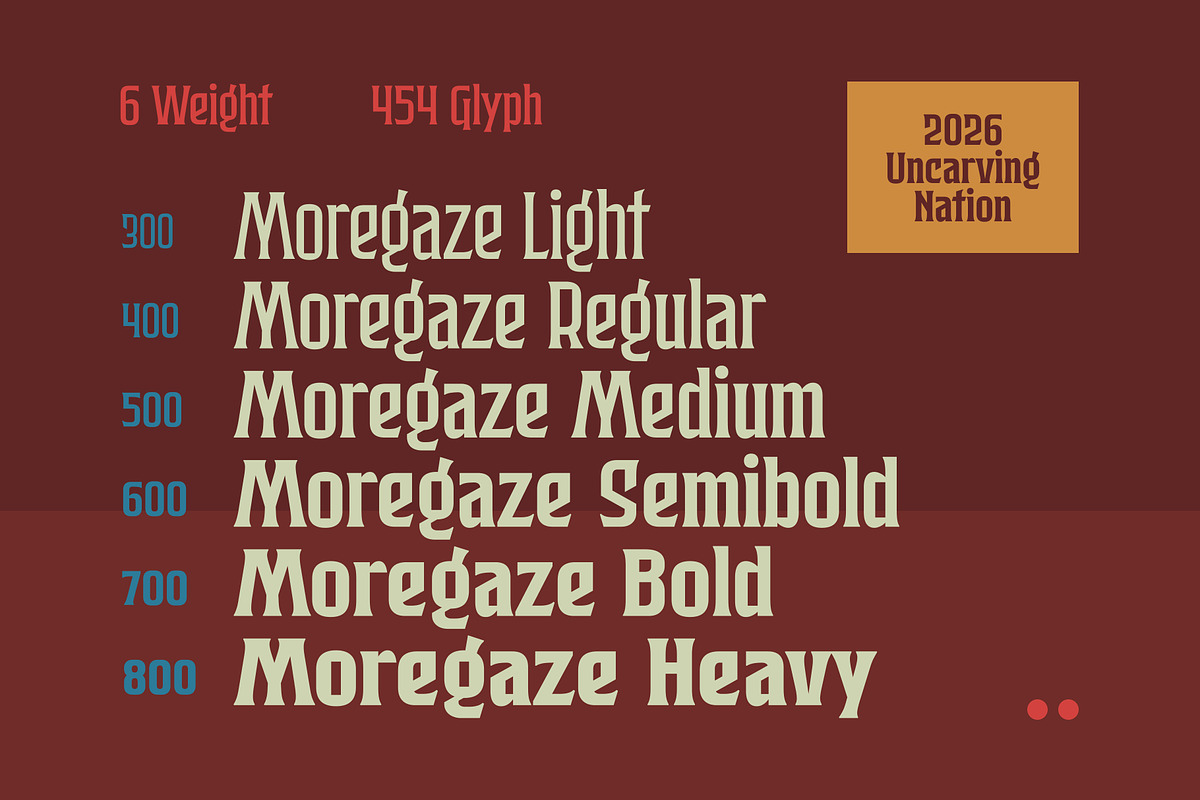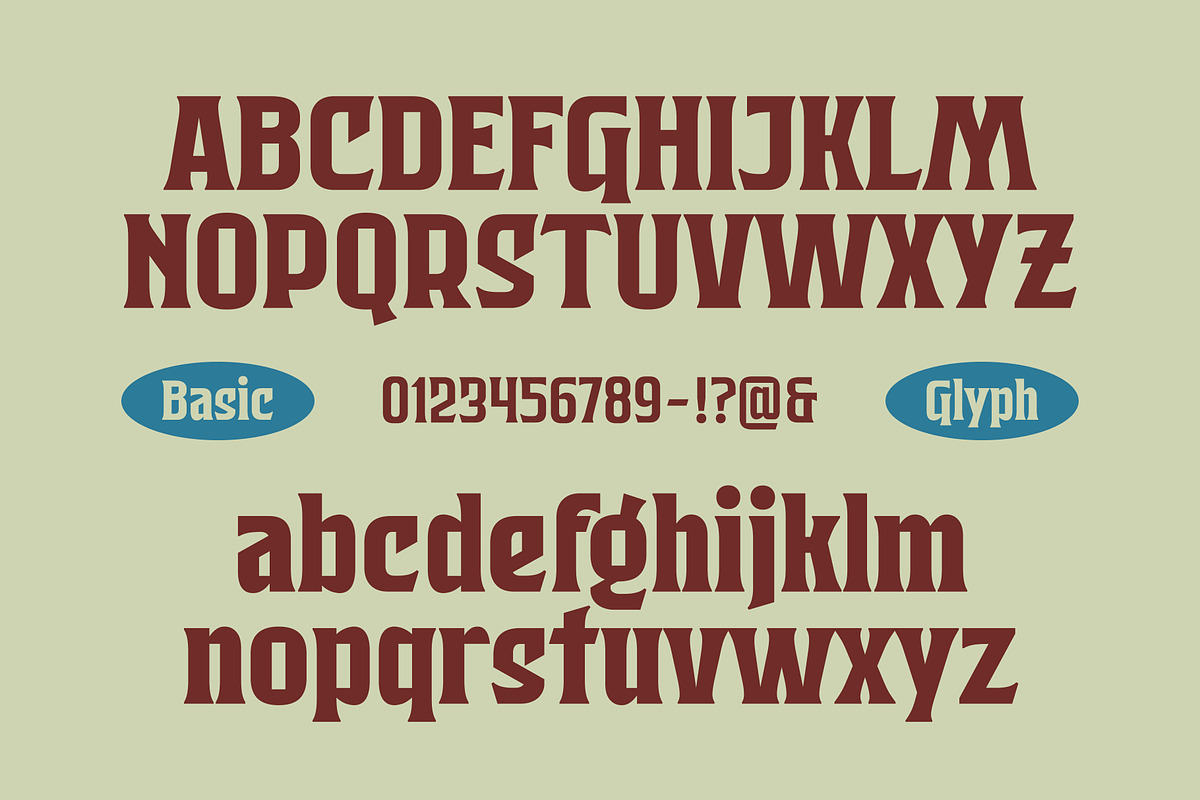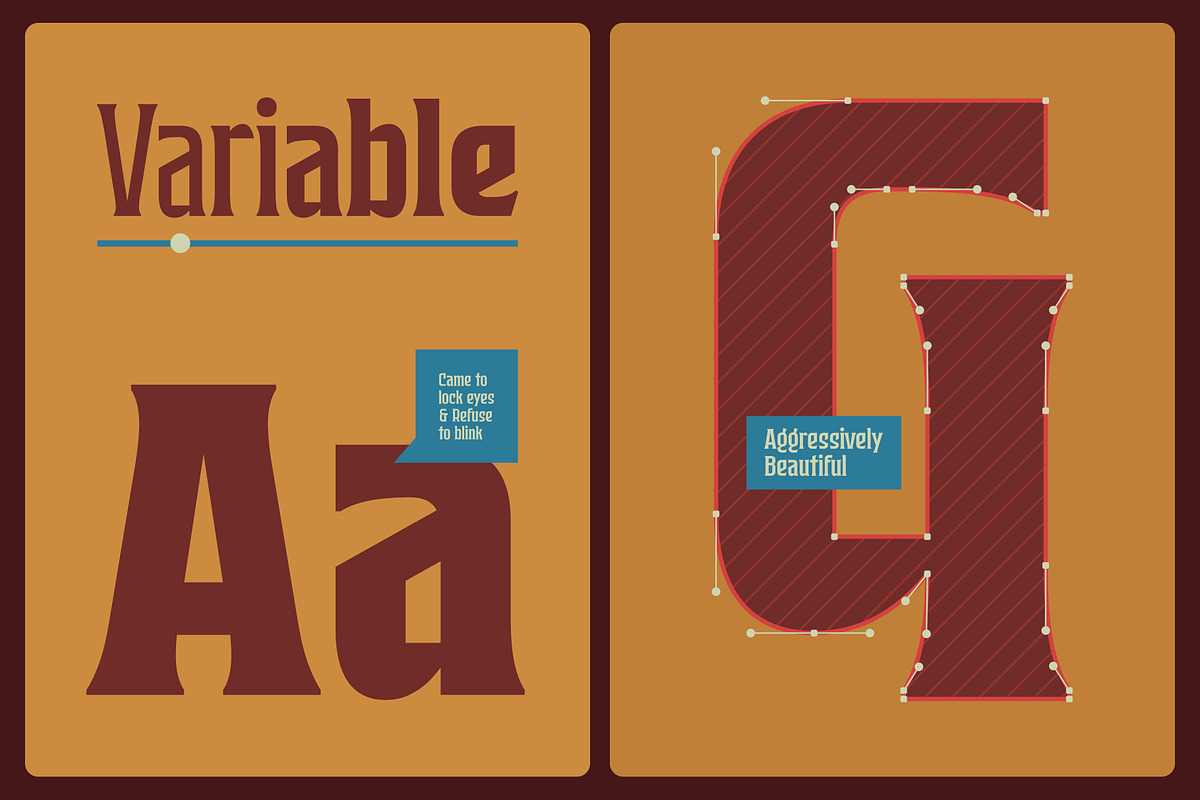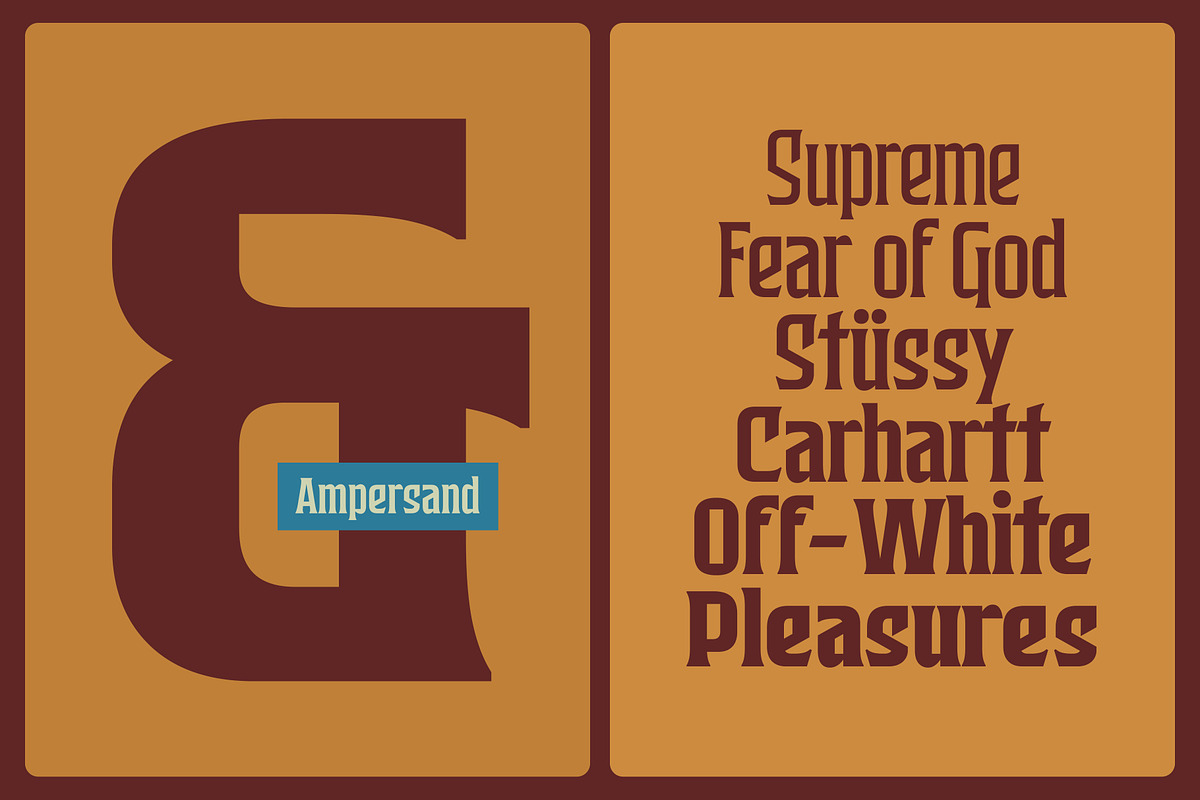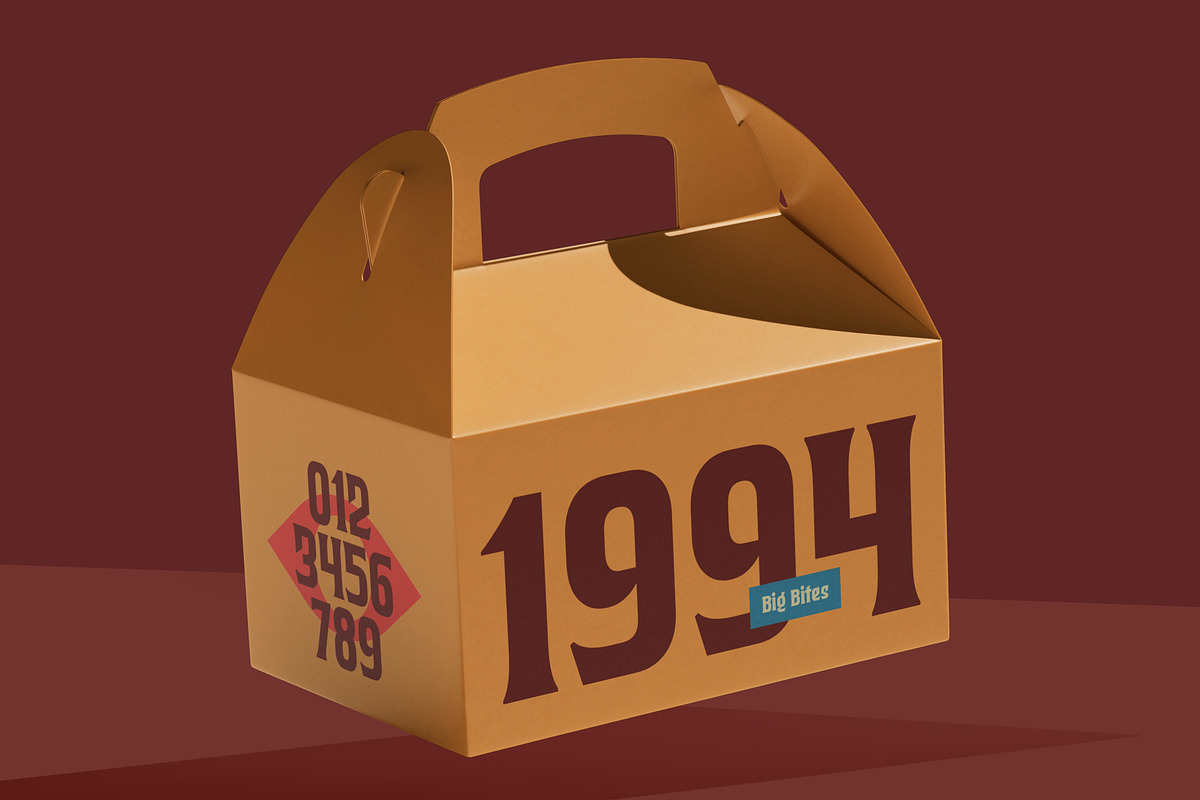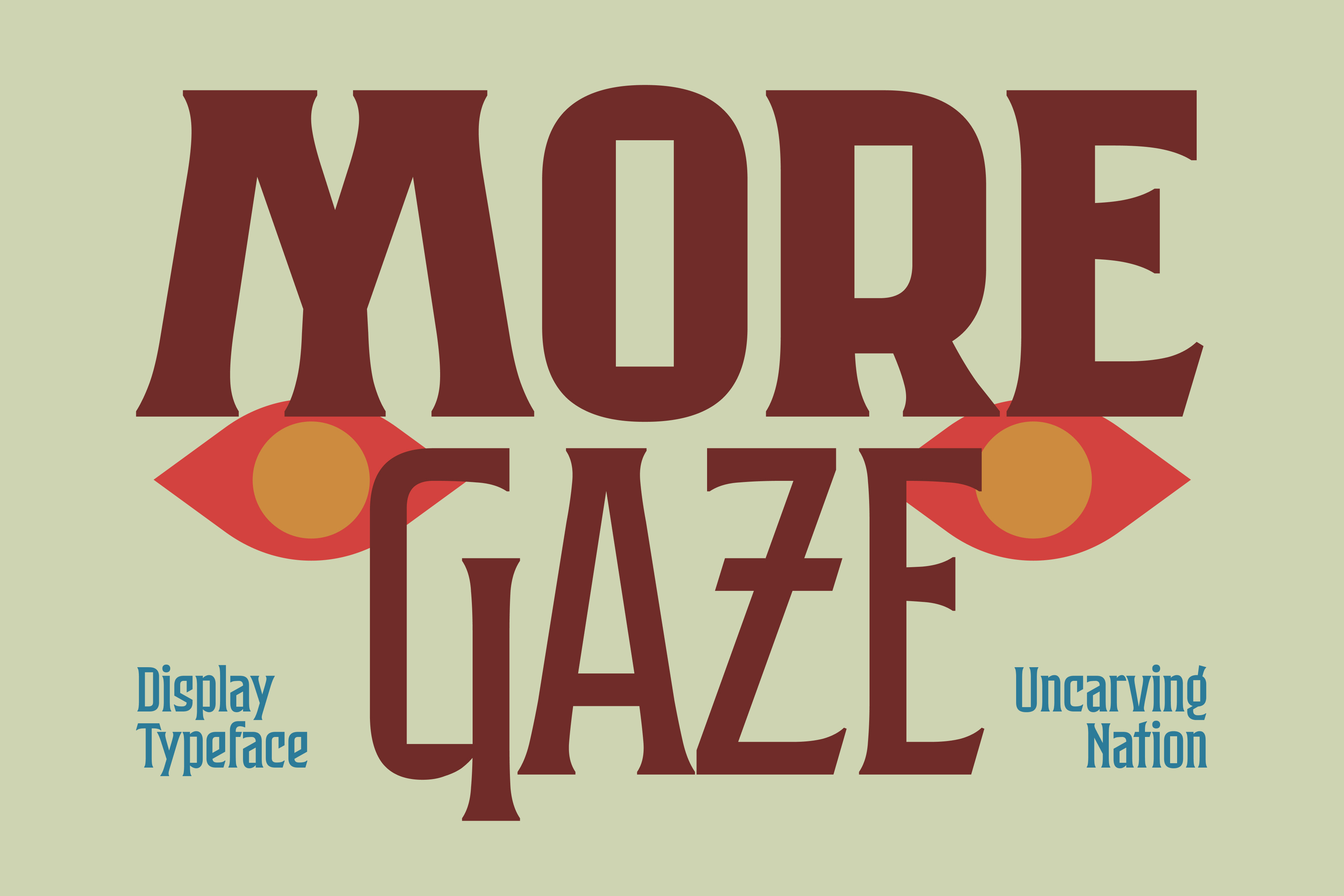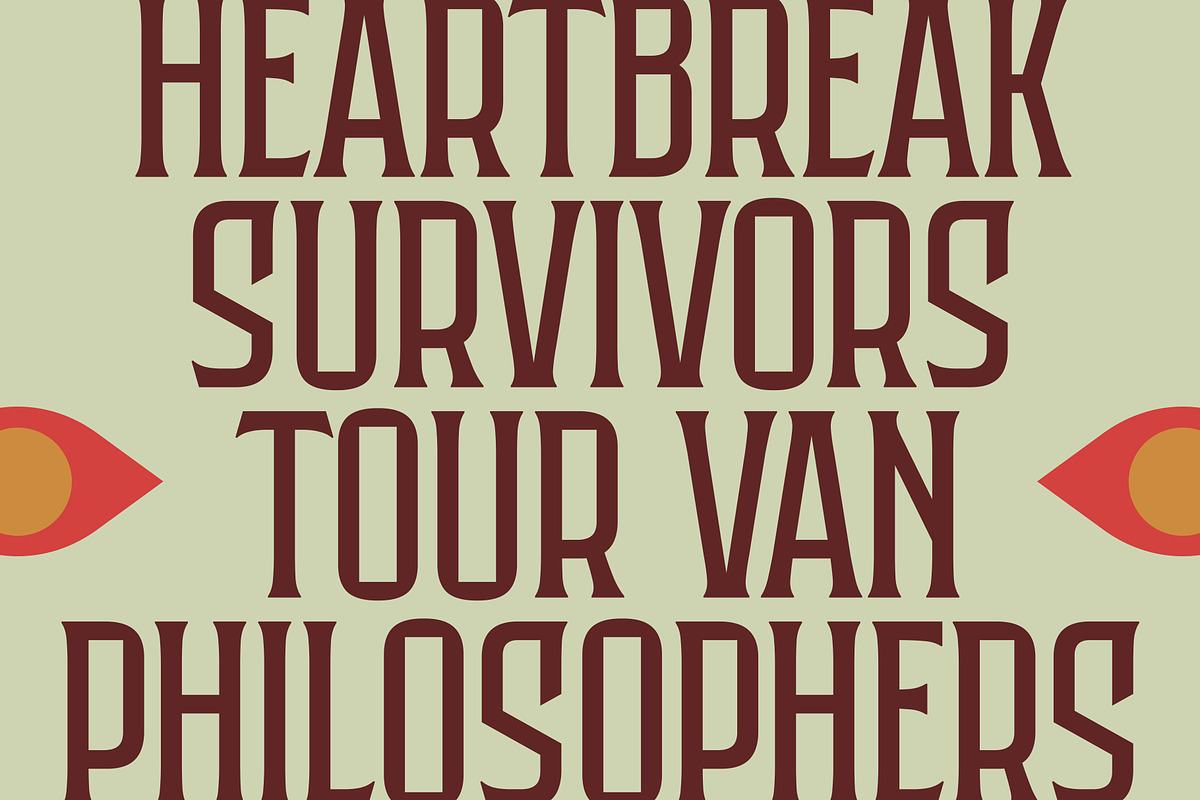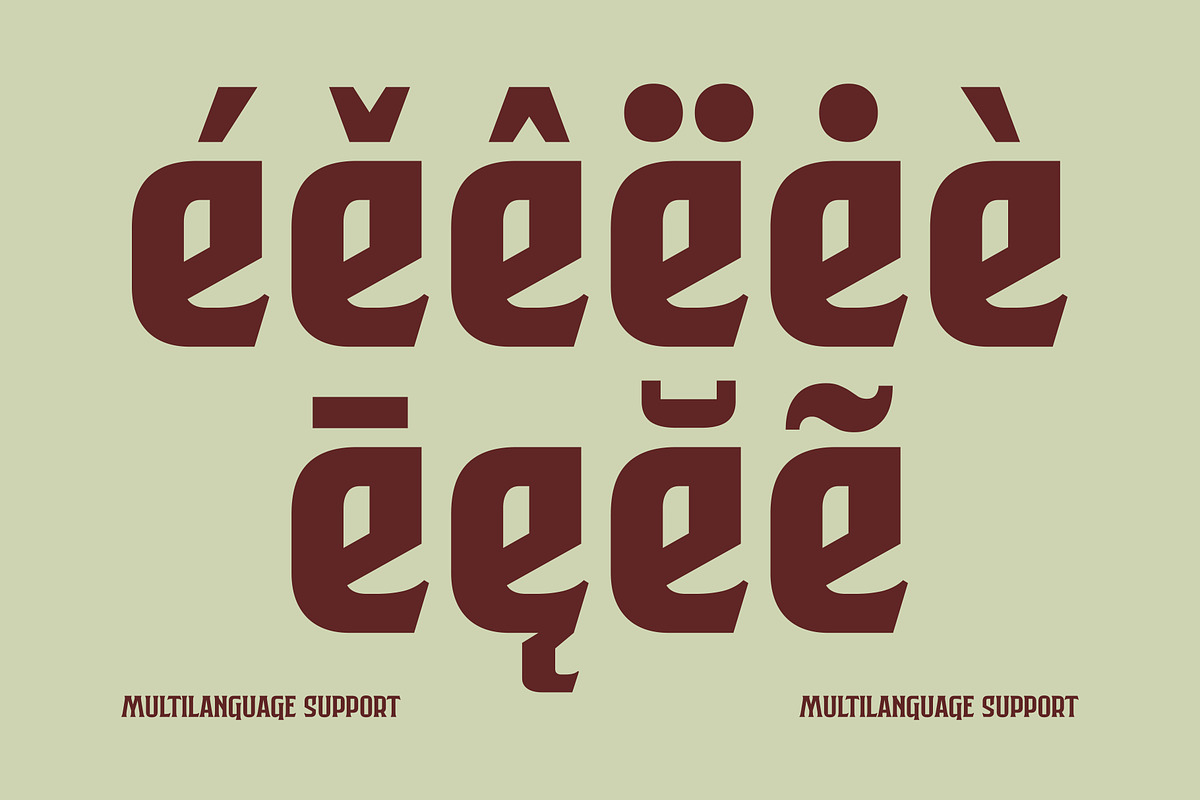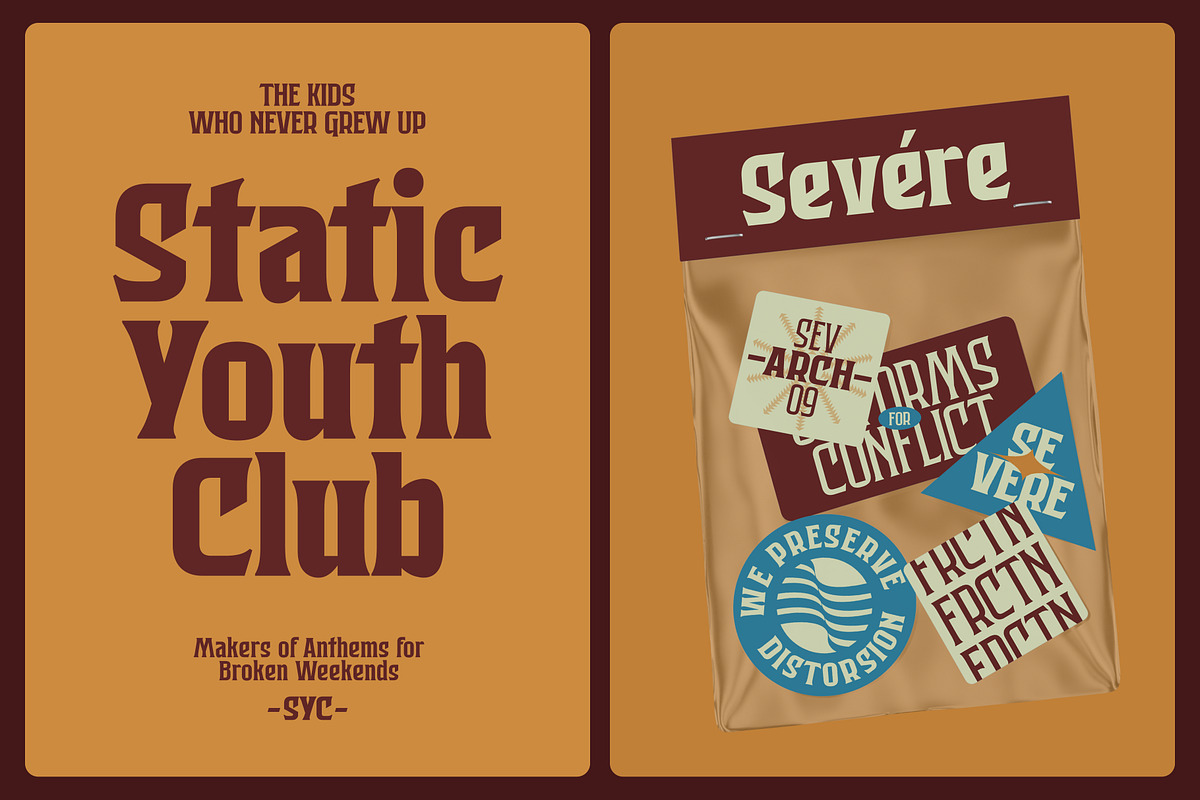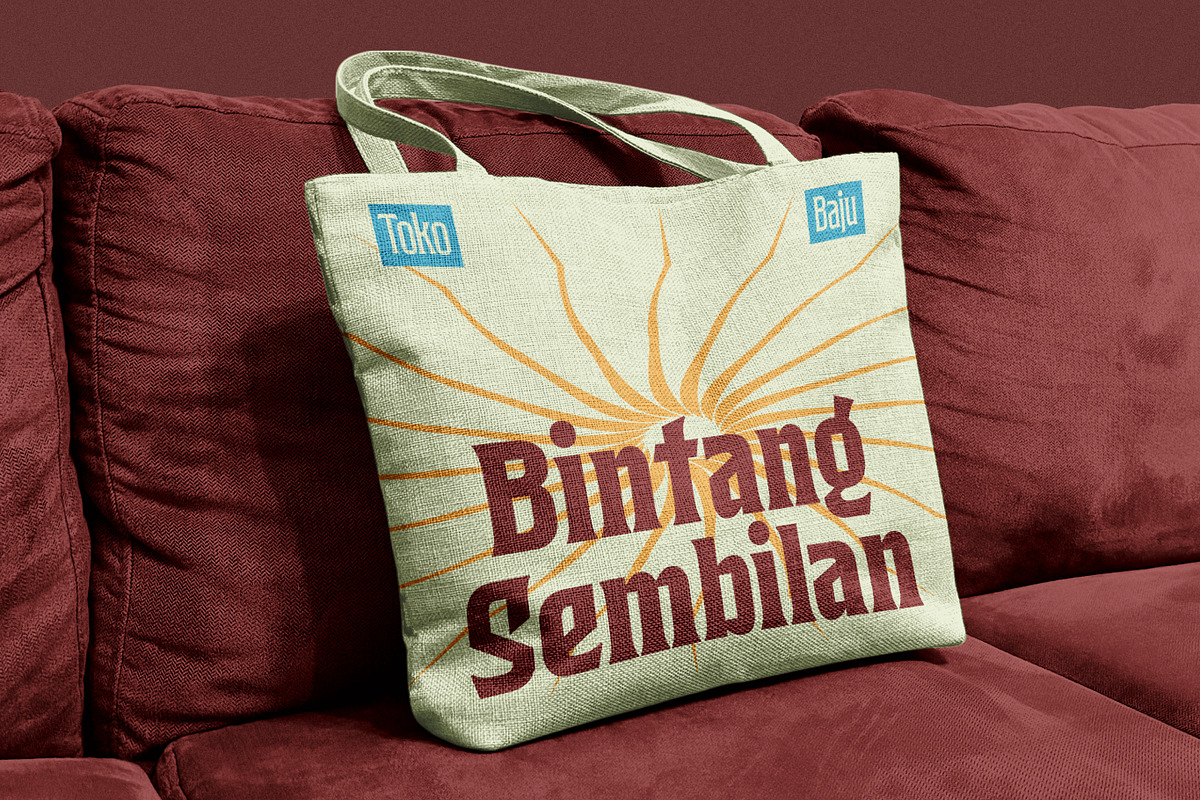
Moregaze - Display Typeface
Meet Moregaze, a heavy-hitting retro display typeface designed to capture the raw energy of 90s streetwear, grunge zines, and vintage vinyl records. With its bold, flared serifs and chunky, rebellious aesthetic, Moregaze feels right at home on everything from tour posters and album covers to oversized graphic tees and modern editorial layouts.
Whether you're channeling the nostalgia of 90s skate brands or designing standout packaging, Moregaze delivers maximum impact. It comes equipped as a Variable font alongside 6 static weights, giving you complete control over the typographic weight and presence in your designs.
6 Static Weights: Light, Regular, Medium, Semibold, Bold, and Heavy.
Variable Font: A single file offering fluid, infinite control over the font's weight.
Uppercase & Lowercase characters
Numerals & Extended Punctuation
Extensive Multilingual Support (
OpenType Features ready for professional layout and branding design
Perfect For: Streetwear apparel, logo design, retro branding, music merchandise, album artwork, gig posters, magazine headers, and eye-catching packaging.